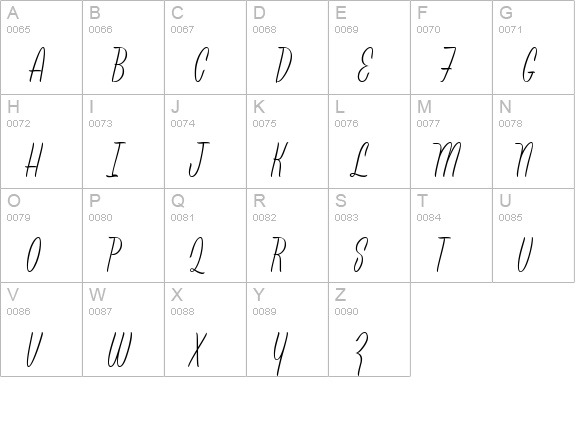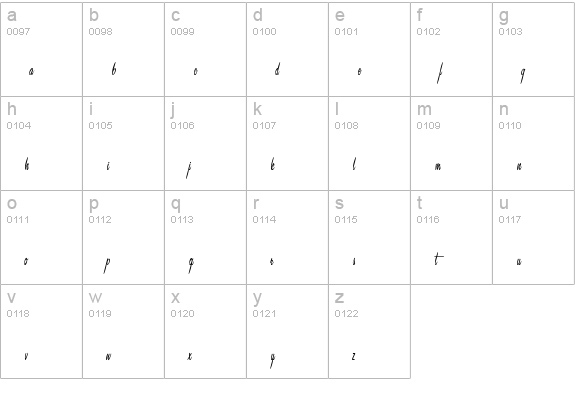
Leisure Script Marquee Font Details
Introducing the captivating and whimsical Leisure Script Marquee font! With its fluid and graceful strokes, this font exudes an air of elegance and playfulness, making it perfect for various creative projects. Leisure Script Marquee font is a delightful combination of sleekness and charm, allowing it to effortlessly elevate any design. Whether you're designing a logo, creating invitations, or working on a branding project, this font will add a touch of sophistication and uniqueness that is sure to impress. Featuring beautifully crafted letters and a wide range of ligatures, Leisure Script Marquee font offers endless opportunities for customization. Its versatility allows you to experiment with different styles and layouts, ensuring that your designs truly stand out from the crowd. And the best part? Leisure Script Marquee font is freely available to download at FontsMarket.com. Yes, you heard it right! This stunning font can be yours without any cost, allowing you to unleash your creativity without breaking the bank. So why wait? Head over to FontsMarket.com now and give your designs the flair they deserve with Leisure Script Marquee font!